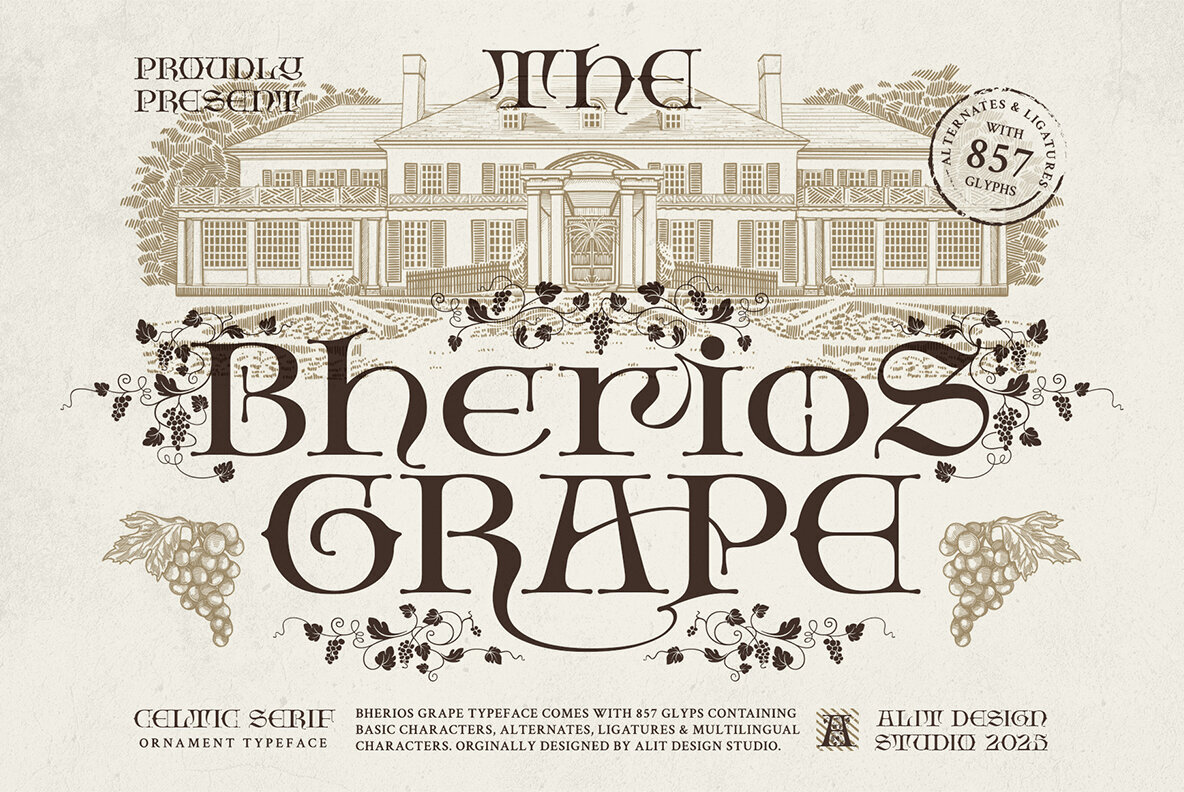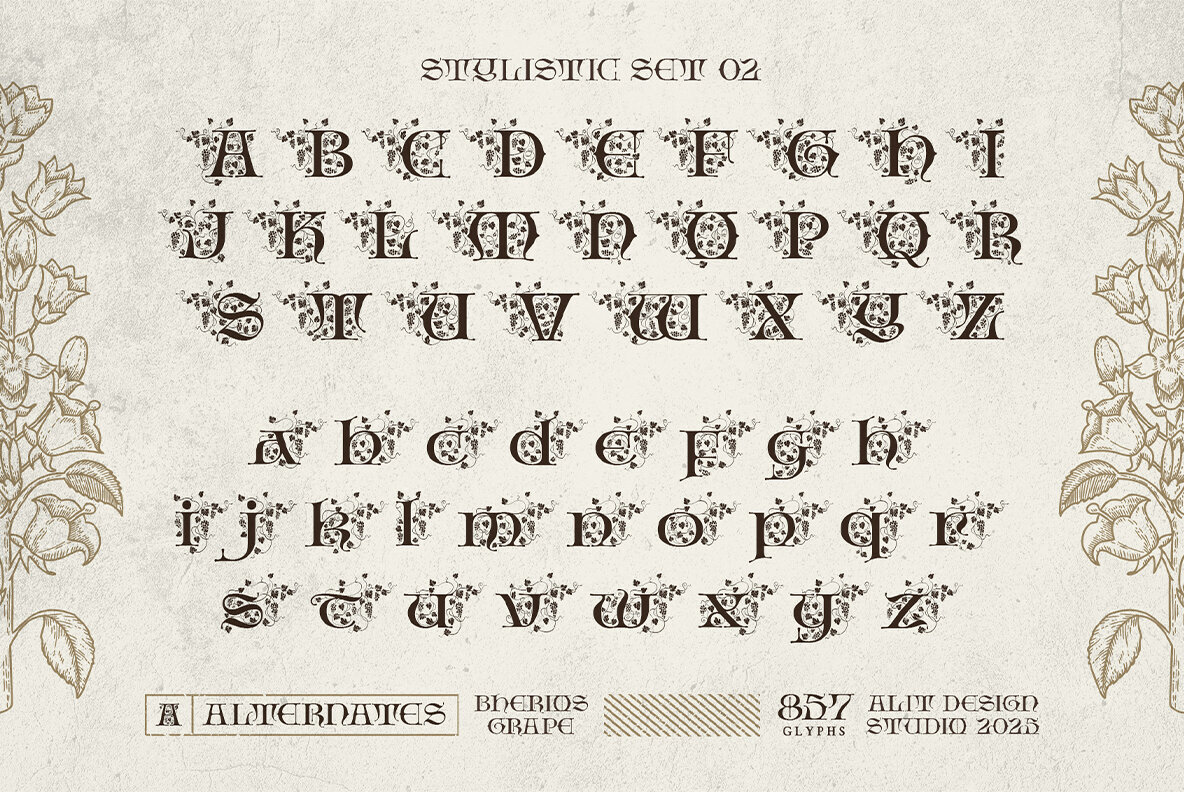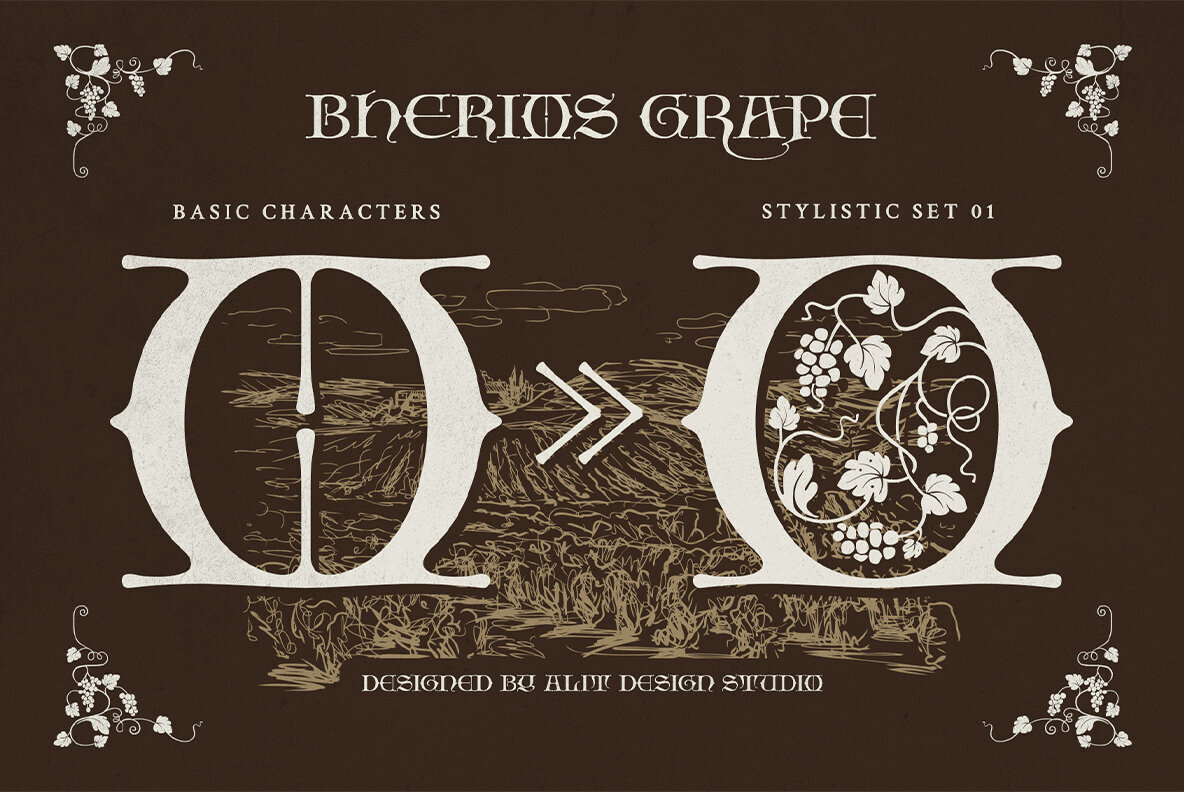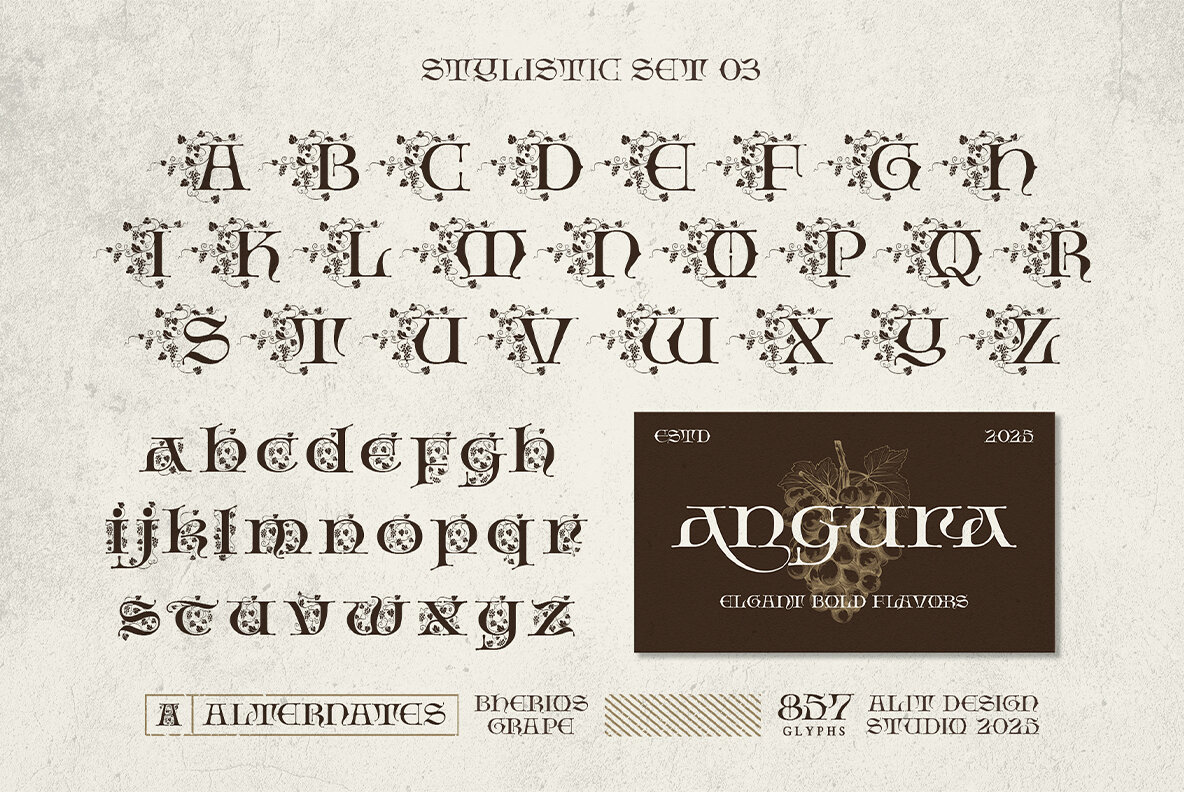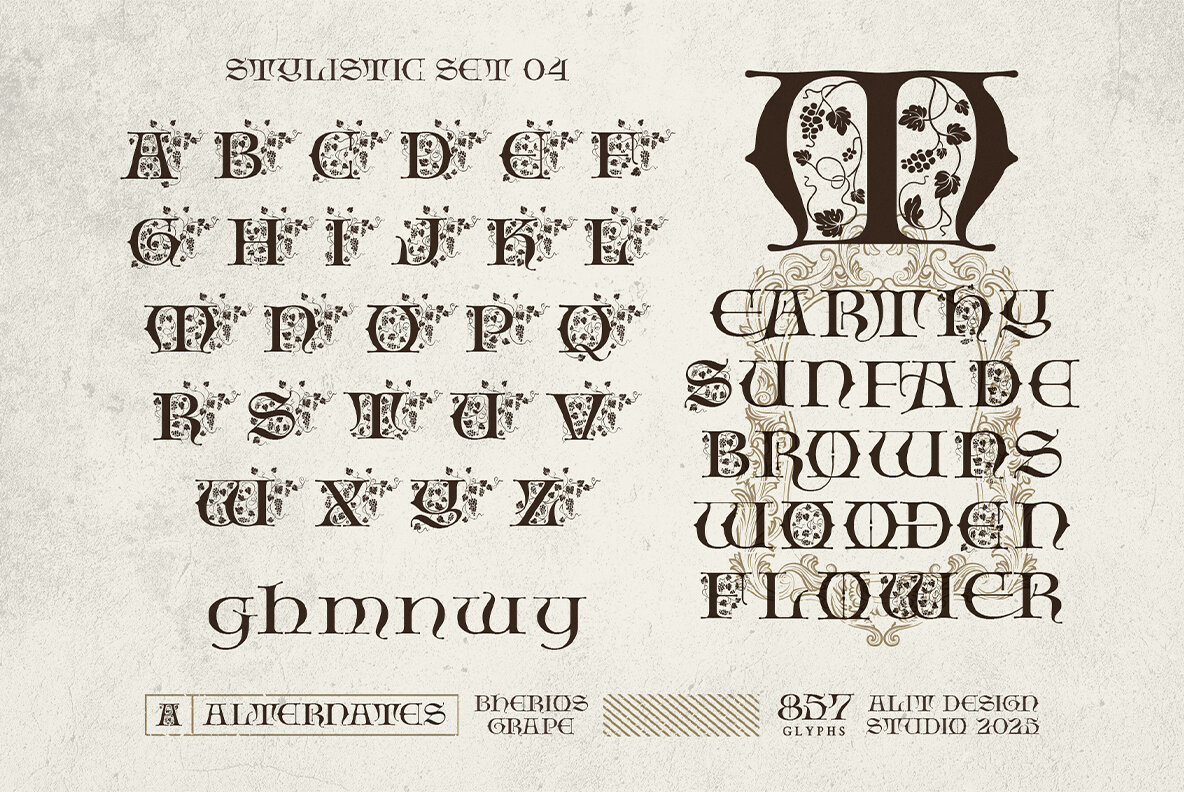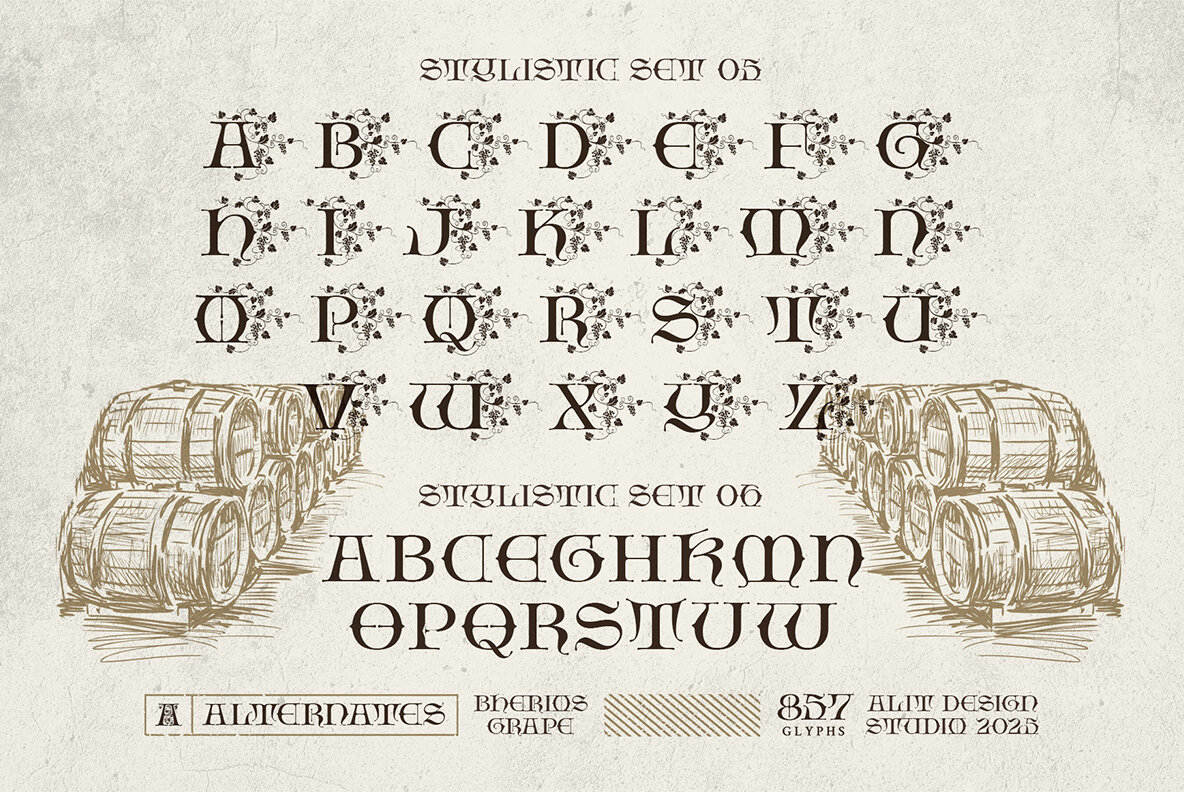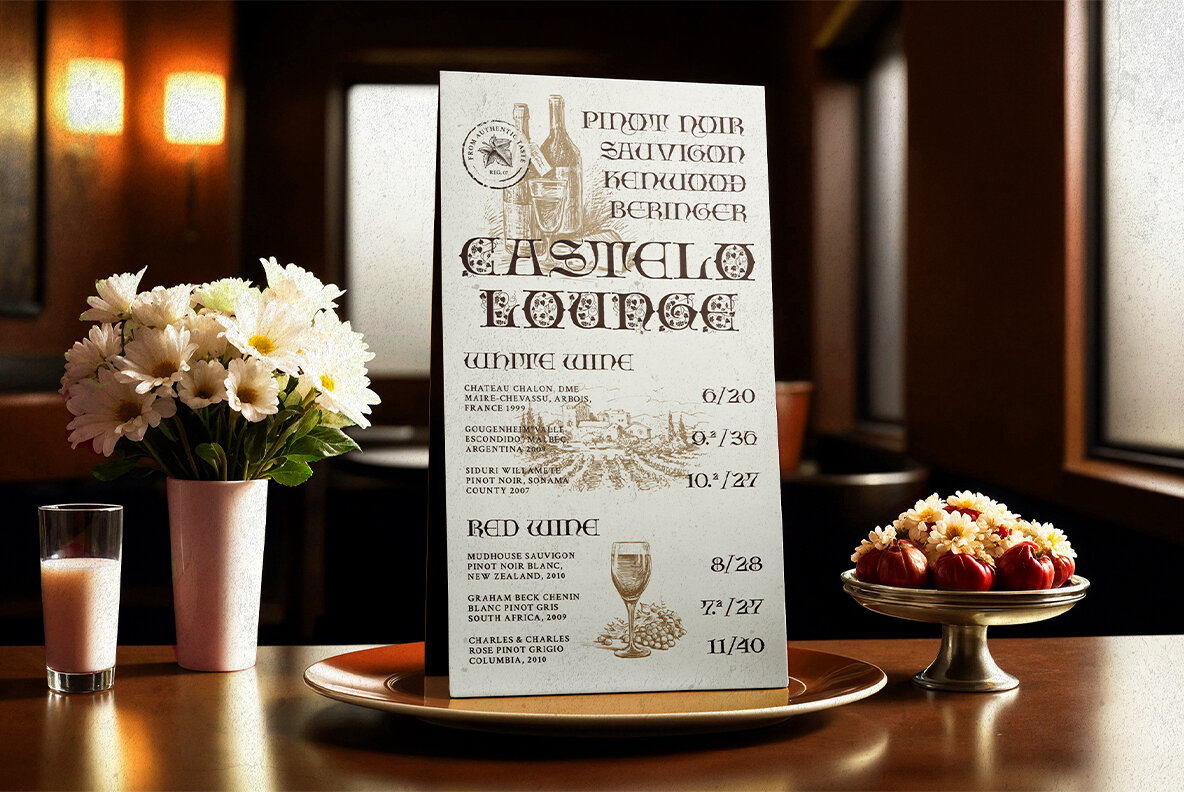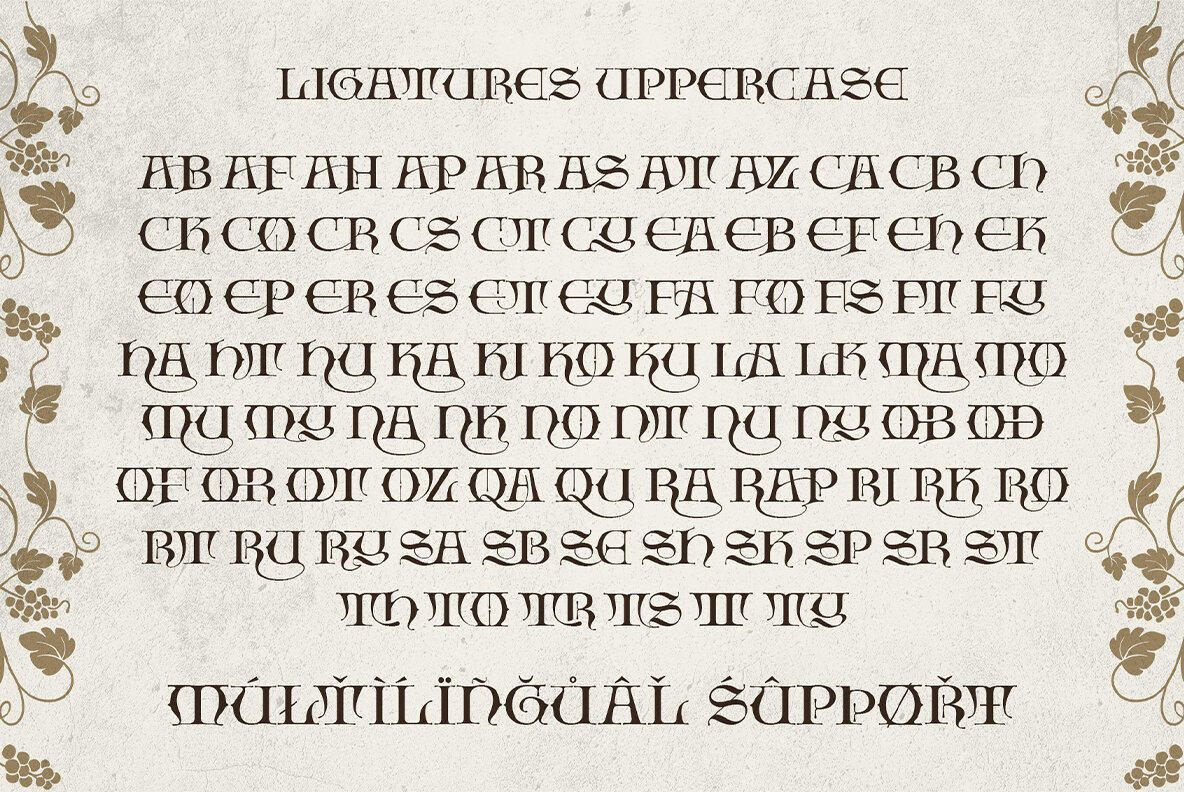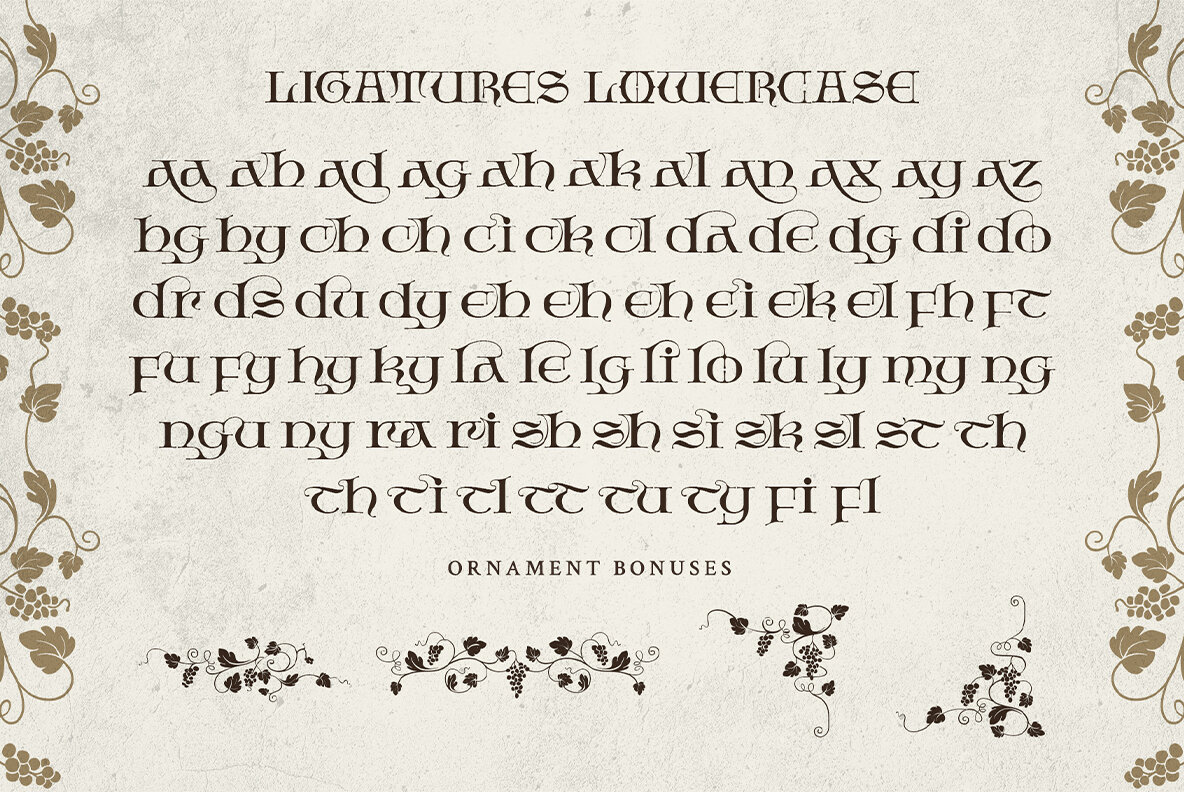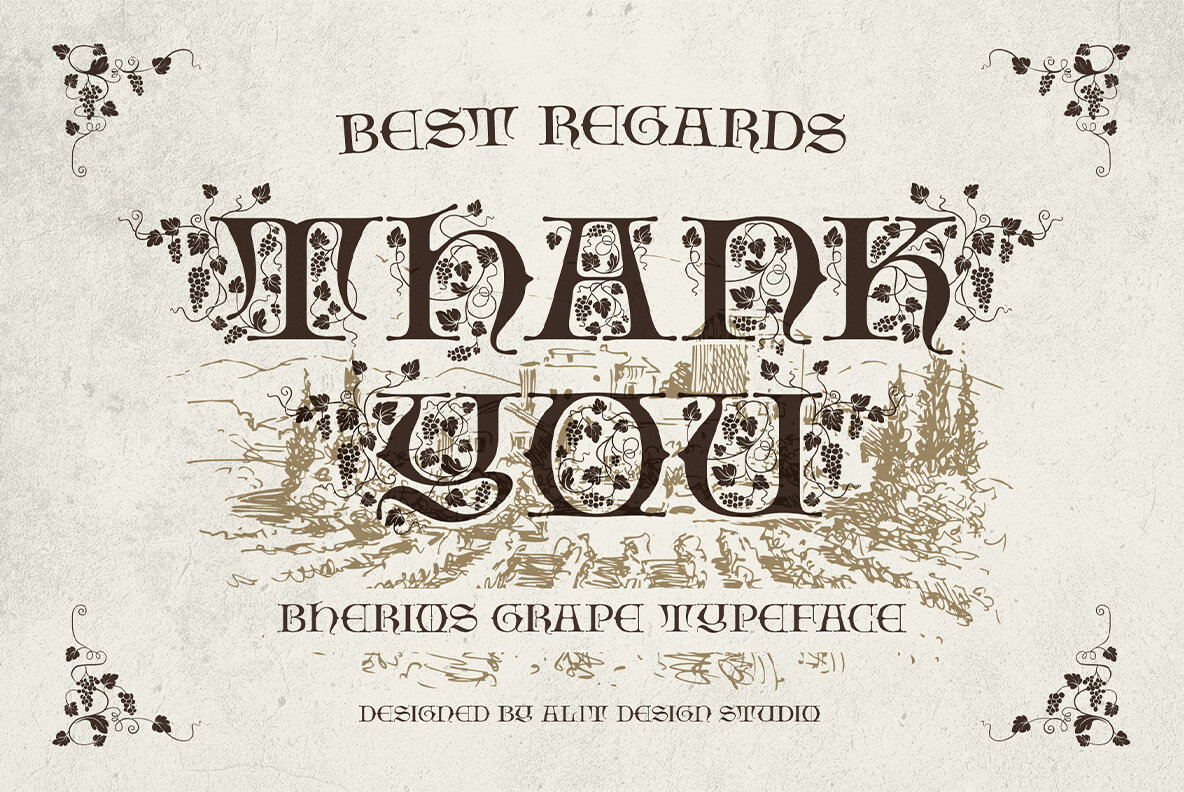
Bherios Grape Font
Bherios Grape Regular
Bherios Grape is a classic serif typeface that gracefully combines historical allure with intricate artistic beauty. Drawing inspiration from early 20th-century Europe, it offers a nod to the precision of vintage print and the artistry that flourished around the World War I era. The heart of Bherios Grape is its remarkable stylistic alternates. These allow you to transform standard letters into artful illustrations, weaving characters with grapevines, leaves, and clusters. This distinctive feature seamlessly infuses projects with organic, decorative flair. With robust, classic forms and elaborate flourishes, Bherios Grape is ideal for designs that demand distinction and heritage. While firmly rooted in classic serif tradition, its ornate elegance complements themes from Art Nouveau to the grand sophistication of Art Deco. Perfect For:Bherios Grape: A Serif Typeface of Timeless Elegance